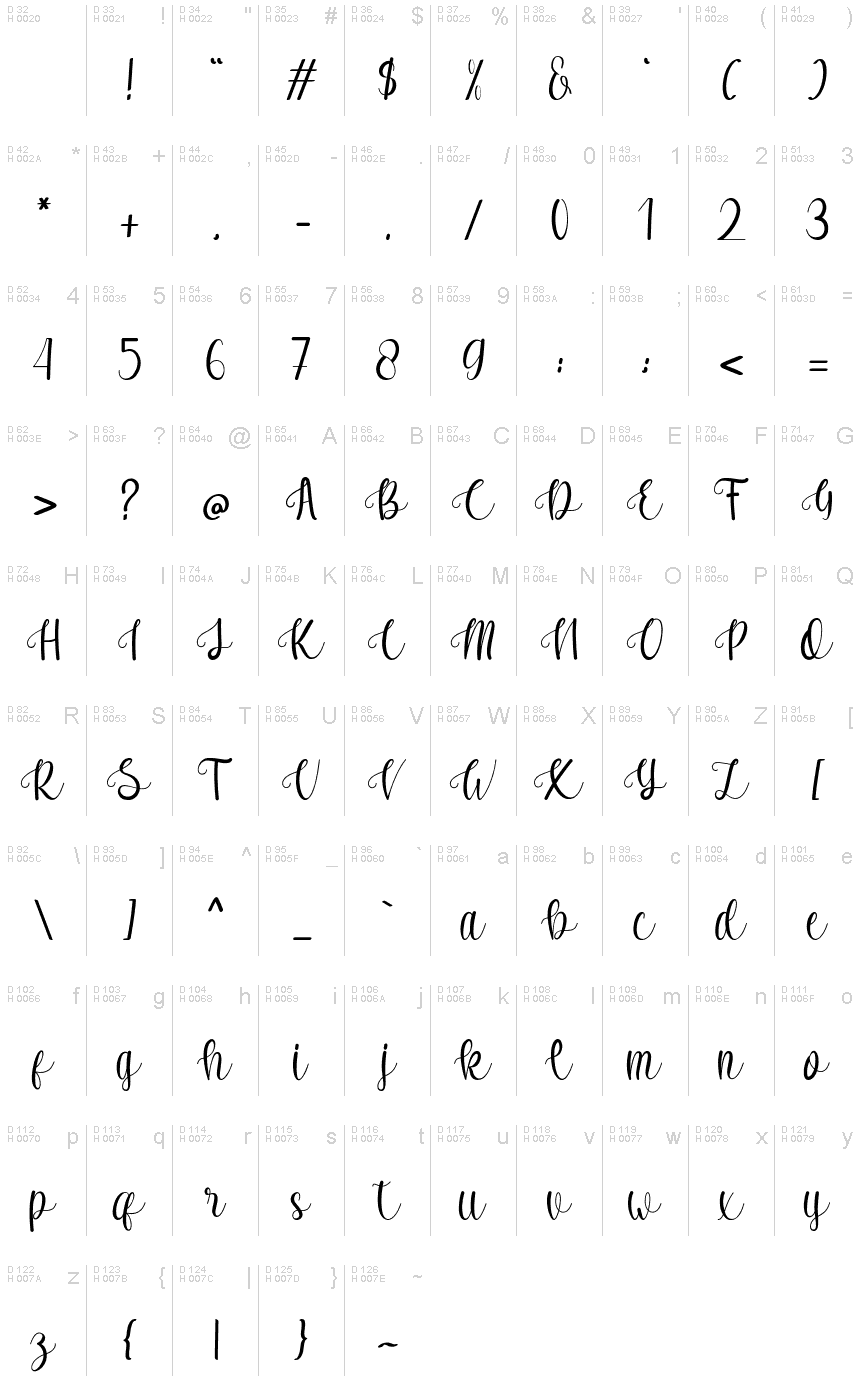
Calianna-Demo Regular
Calianna, a mesmerizing semi-light script font designed by Suamzu Art, adds an elegant touch to any project. With its graceful strokes and flowing curves, Calianna is perfect for wedding invitations, feminine branding, and delicate stationery. This typeface exudes sophistication and can effortlessly enhance logos, fashion blogs, or beauty websites. Whether you're designing romantic greeting cards or curating dreamy social media posts, Calianna's versatile script style is the ideal choice for expressing elegance and grace. Elevate your projects with the enchanting charm of Calianna font!